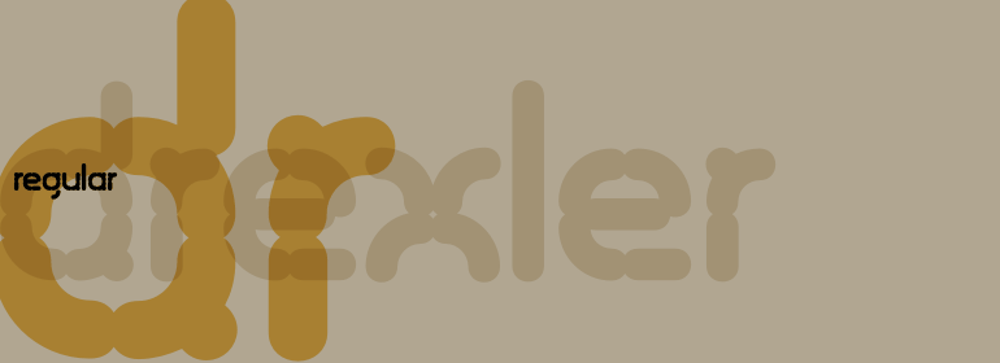
Drexler Font Family was designed by Rian Hughes and published by Device. Drexler contains 1 styles and family package options. Drexler is a logically constructed molecular font built via nanotechnology and mathematically derived geometric permutations.